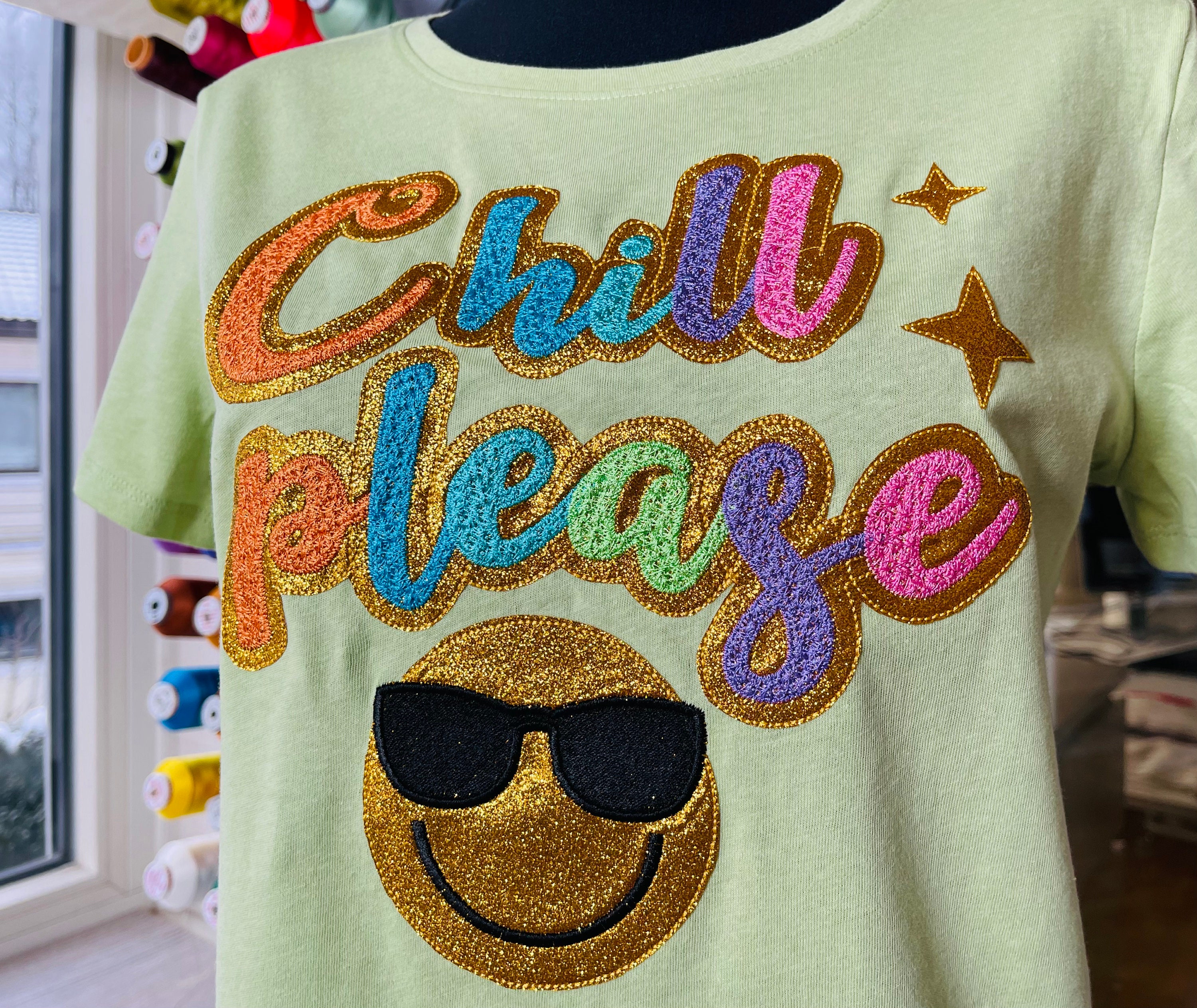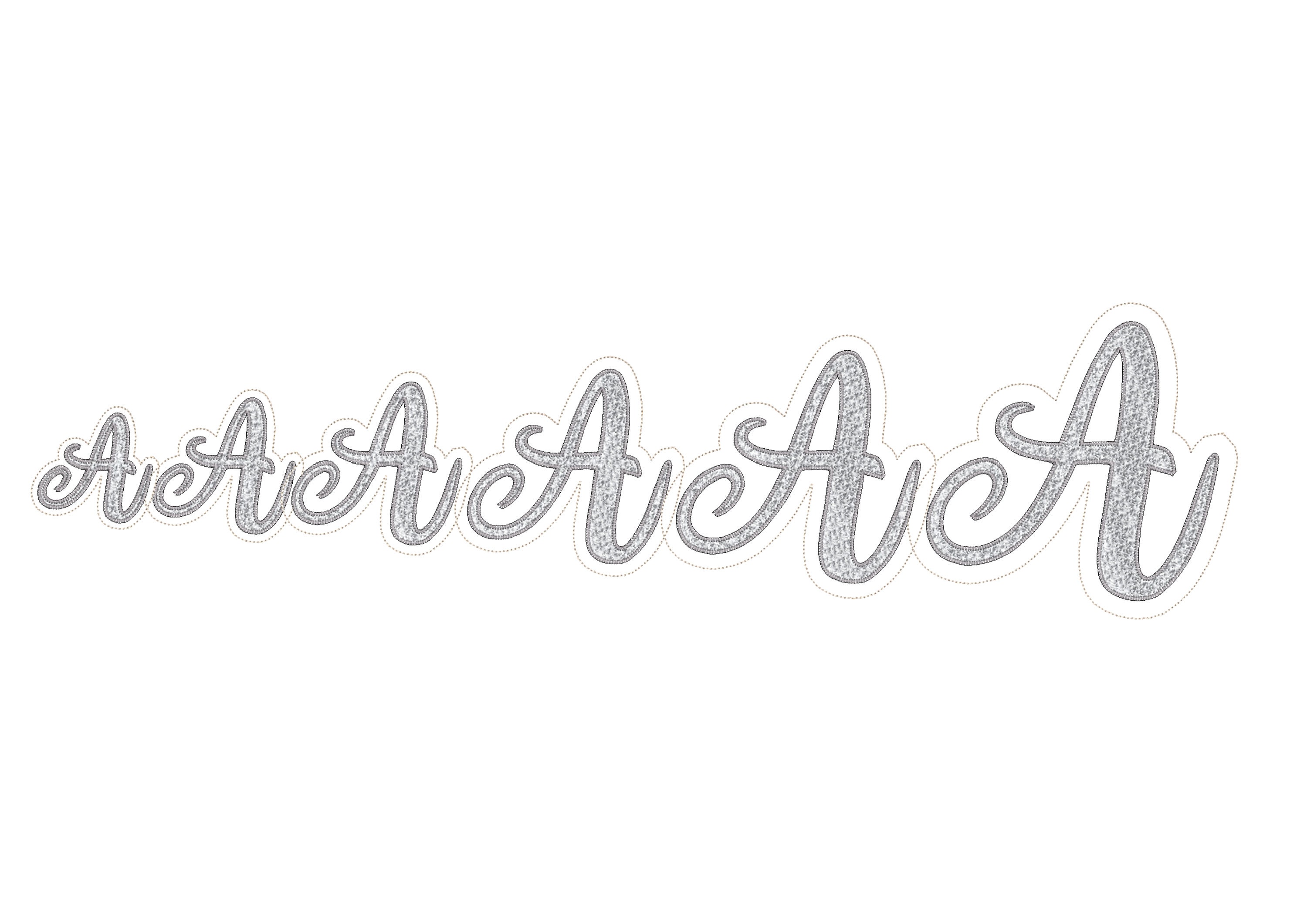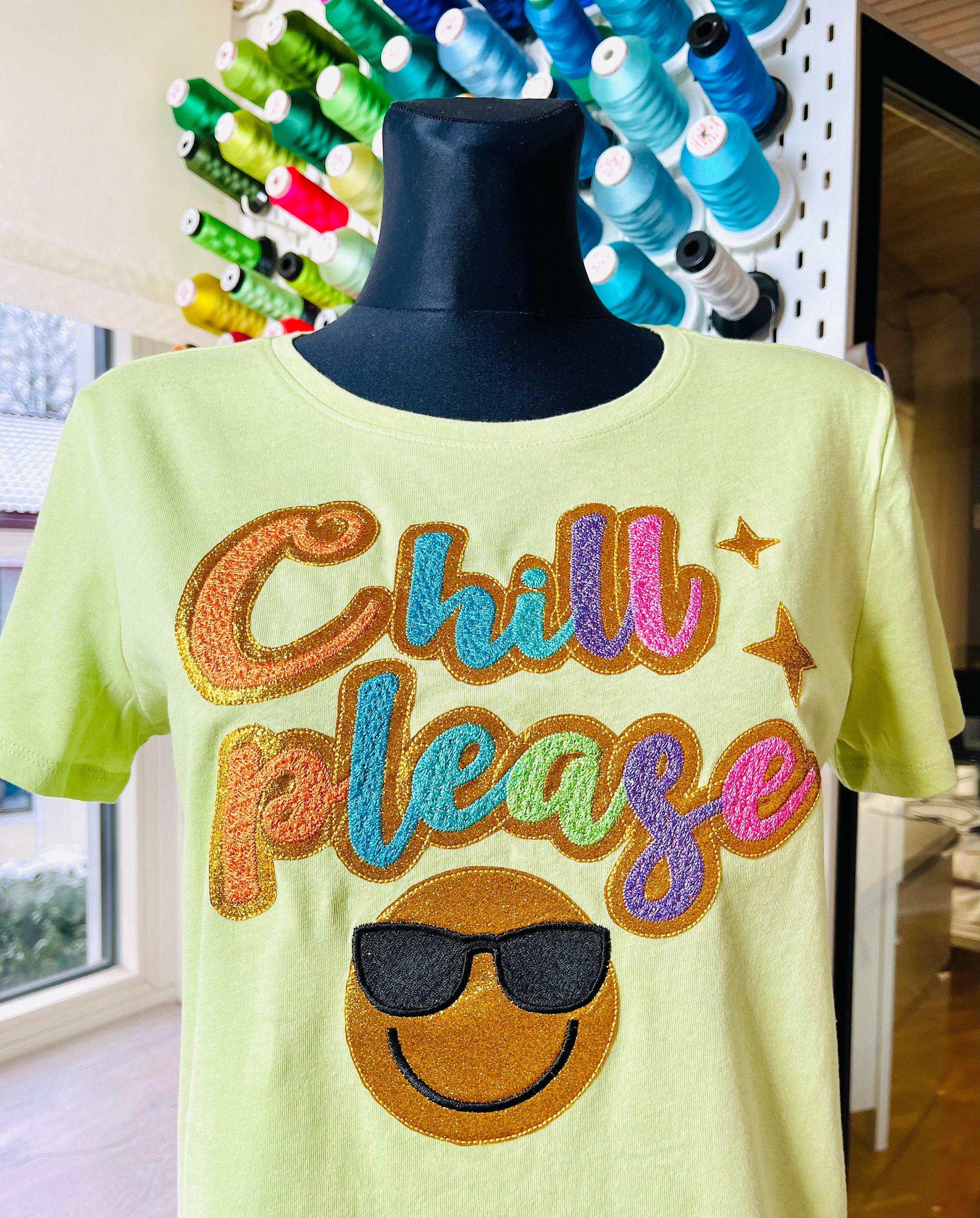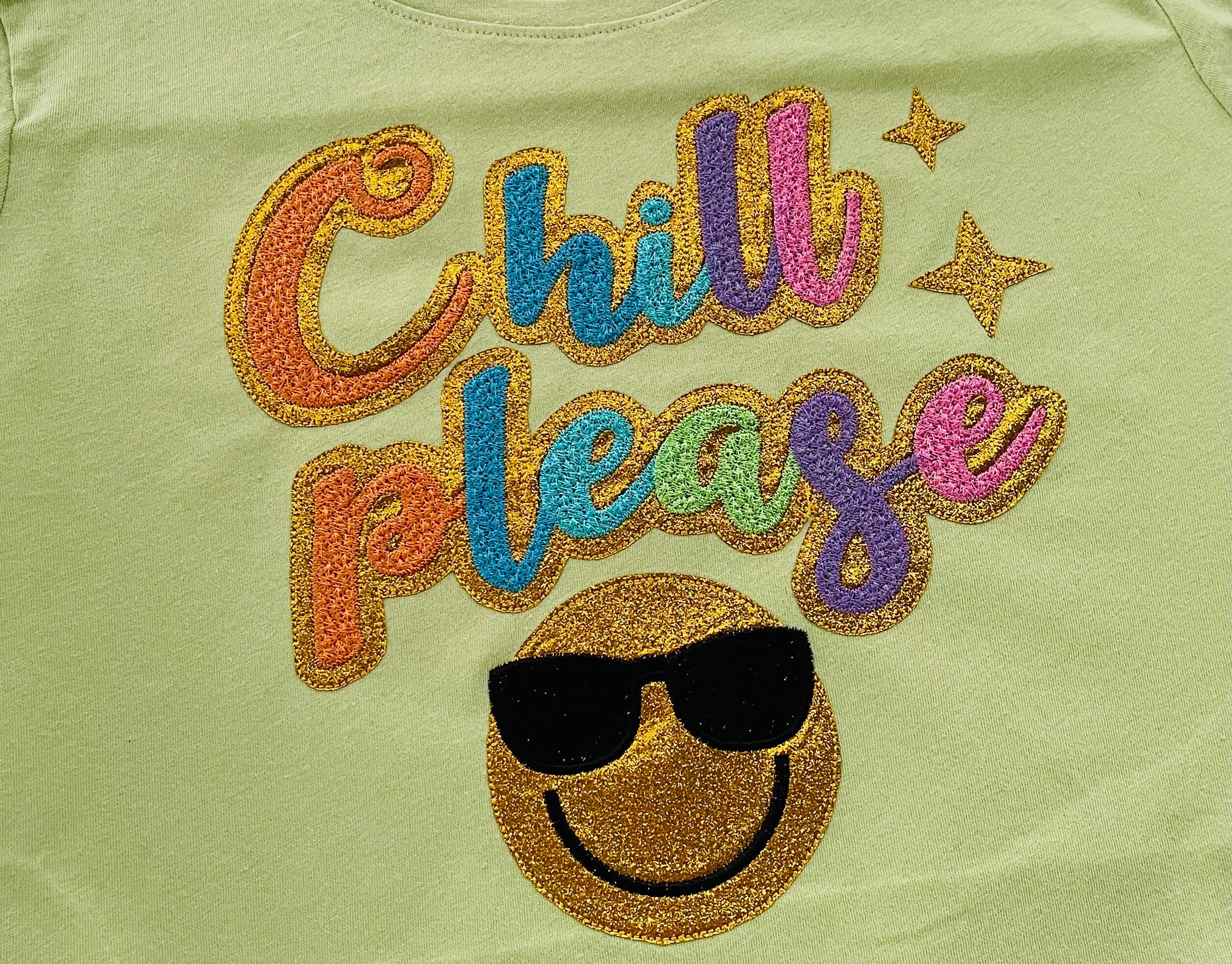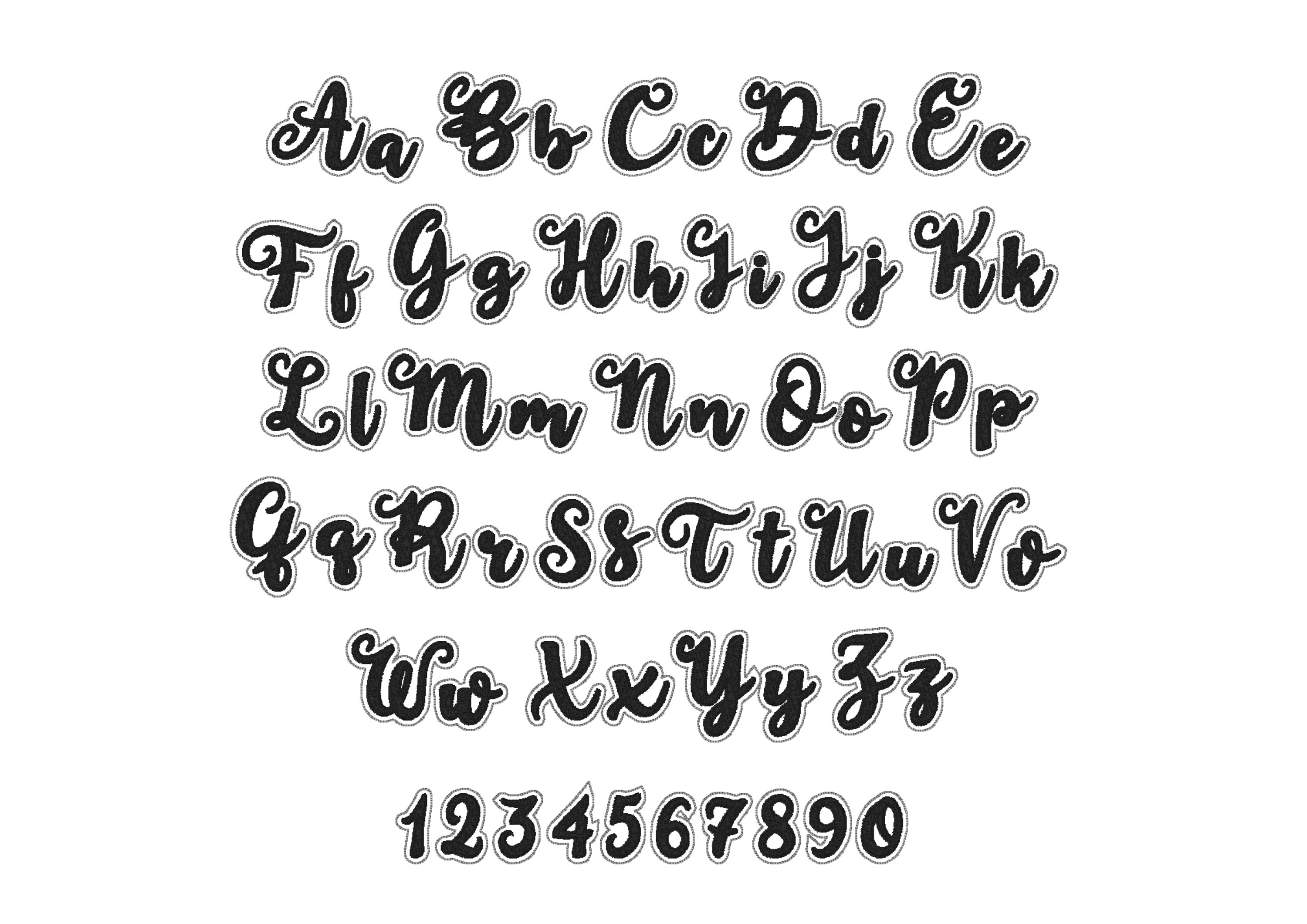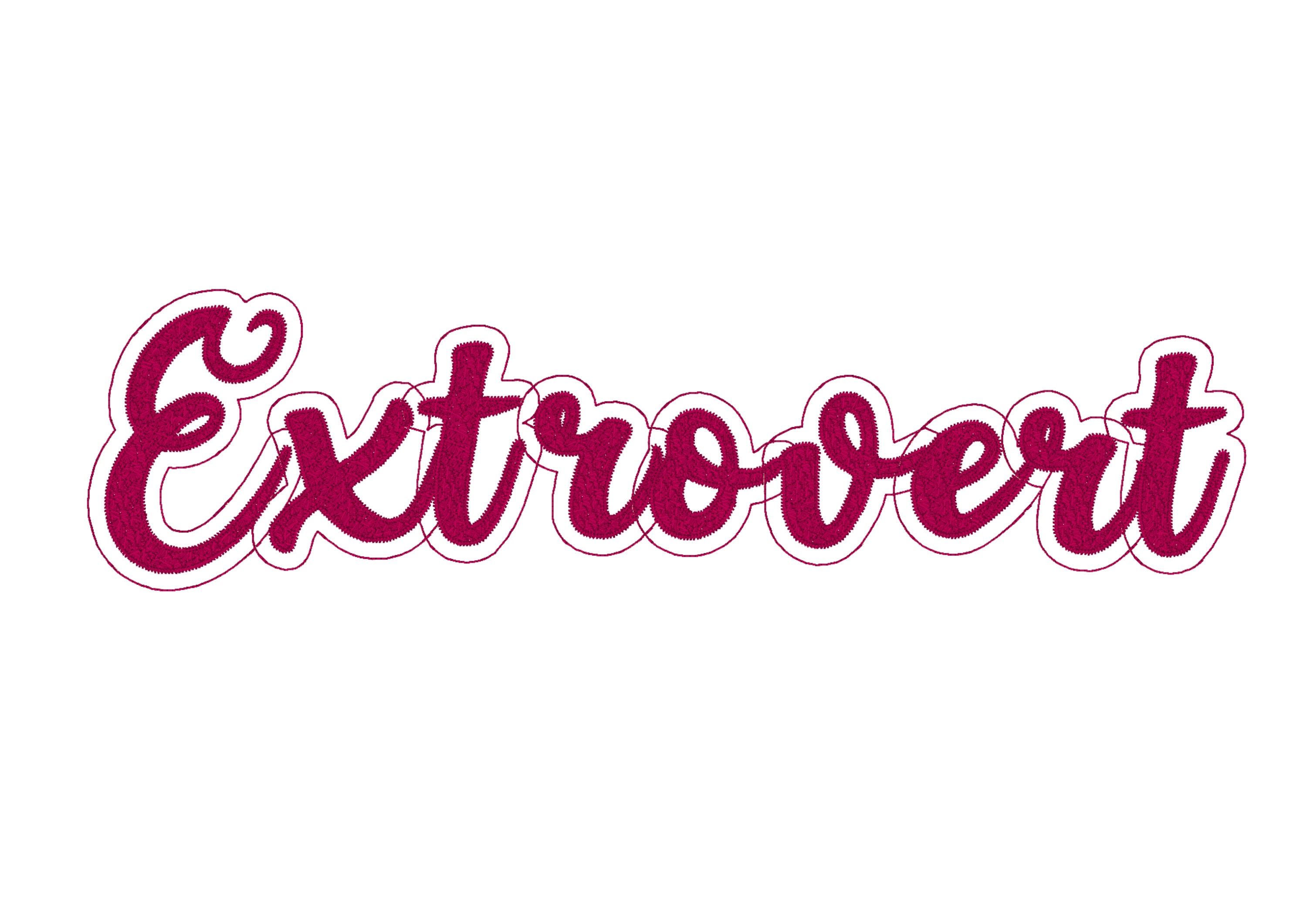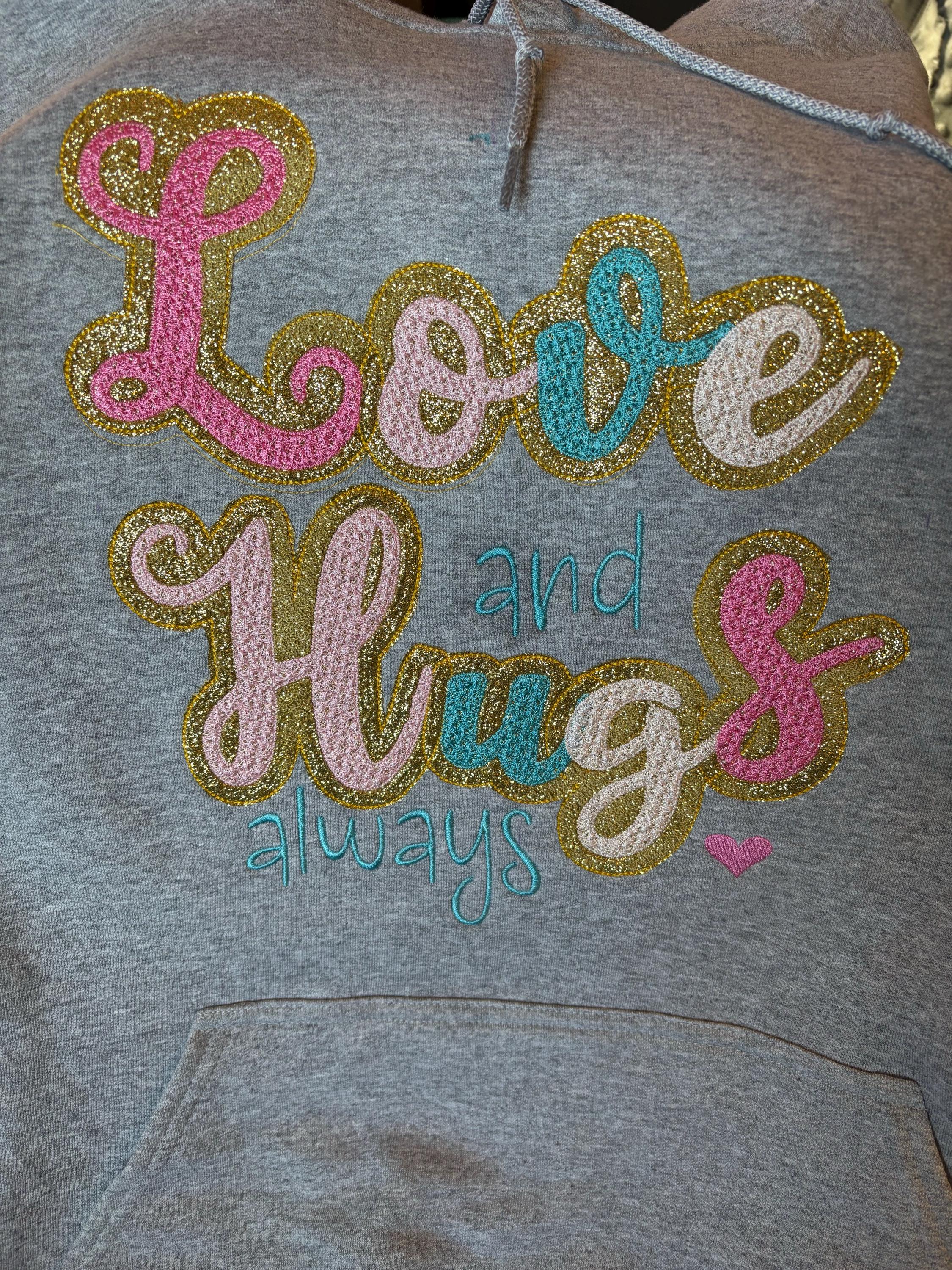
Glitter faux chenille vinyl FONT Double two layer machine embroidery designs faux chenille glitter font, read the note below, add-on Smile
Uppercase and lowercase letters and numbers.
NOTE! Due to the font handwriting style and letter shape nature, when letters are connected the lines are overlapping. This is not noticeable when stitched with glitter HTV, or glitter faux leather. Pick the thread color close to the glitter shade. See the photo enclosed.